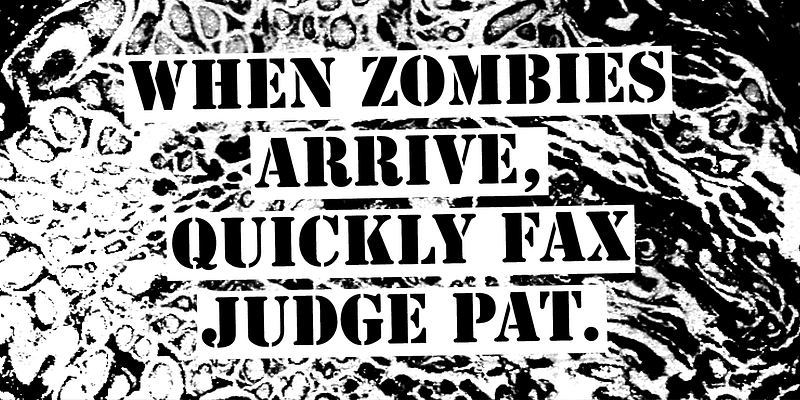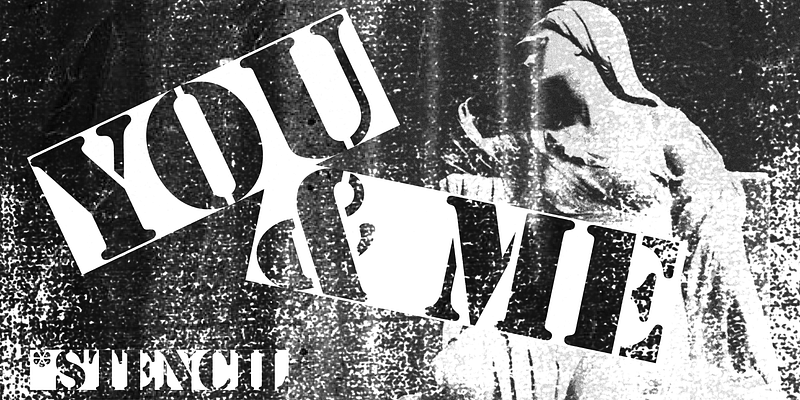
Two typefaces called Stencil were released in 1937 within a month of each other; this one was designed by Gerry Powell for American Type Founders. The characters are designed to emulate the look of bold, cut-out stencil letters. Use this typeface to command attention on signage, and for special effects.